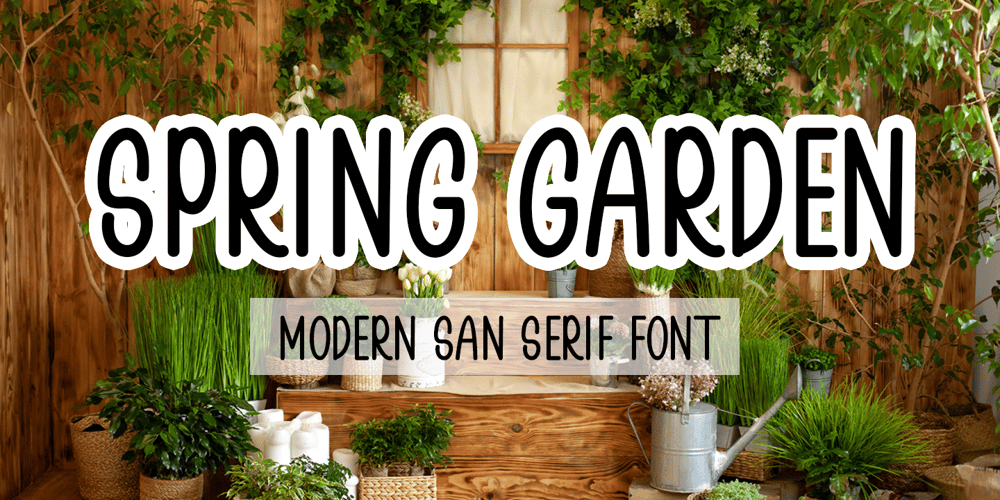
Spring Garden
Spring Garden font
Spring Garden Font Family was designed by Arief Tri Sulistiyono and published by Supersemarletter. Spring Garden contains 1 styles and family package options. Spring Garden is a modern and neat sans serif font. It can be matched to a large set of projects, so add it to your creative ideas and notice how it makes them stand out!Font Features :• Regular version• Character set A-Z in uppercase and lowercase• Alternates option• Numerals & Punctuation• Accented Characters• Multiple Languages Supported• Format File: OTFRecommended to use in Adobe Illustrator or Adobe Photoshop with opentype feature.If you have questions, just send me a message and I’m glad to help.Best Regards,Supersemar Letter